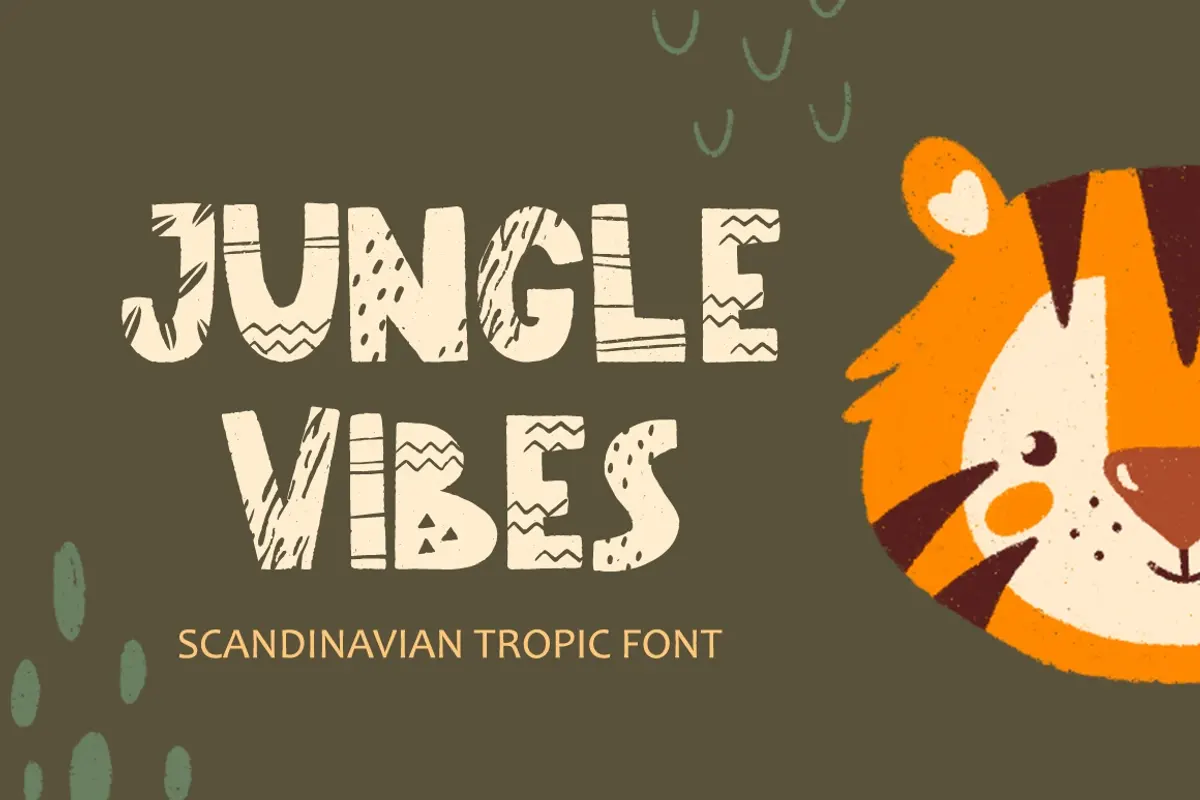
Jungle Vibes • Font Family Free Download
With bold letterforms, organic curves, and playful variations, Jungle Vibes is perfect for eco-conscious branding, kids’ books, nature-themed merchandise, travel posters, and creative packaging. Whether you're going for fun and friendly or bold and untamed, this family gives you the flexibility to explore every vibe.